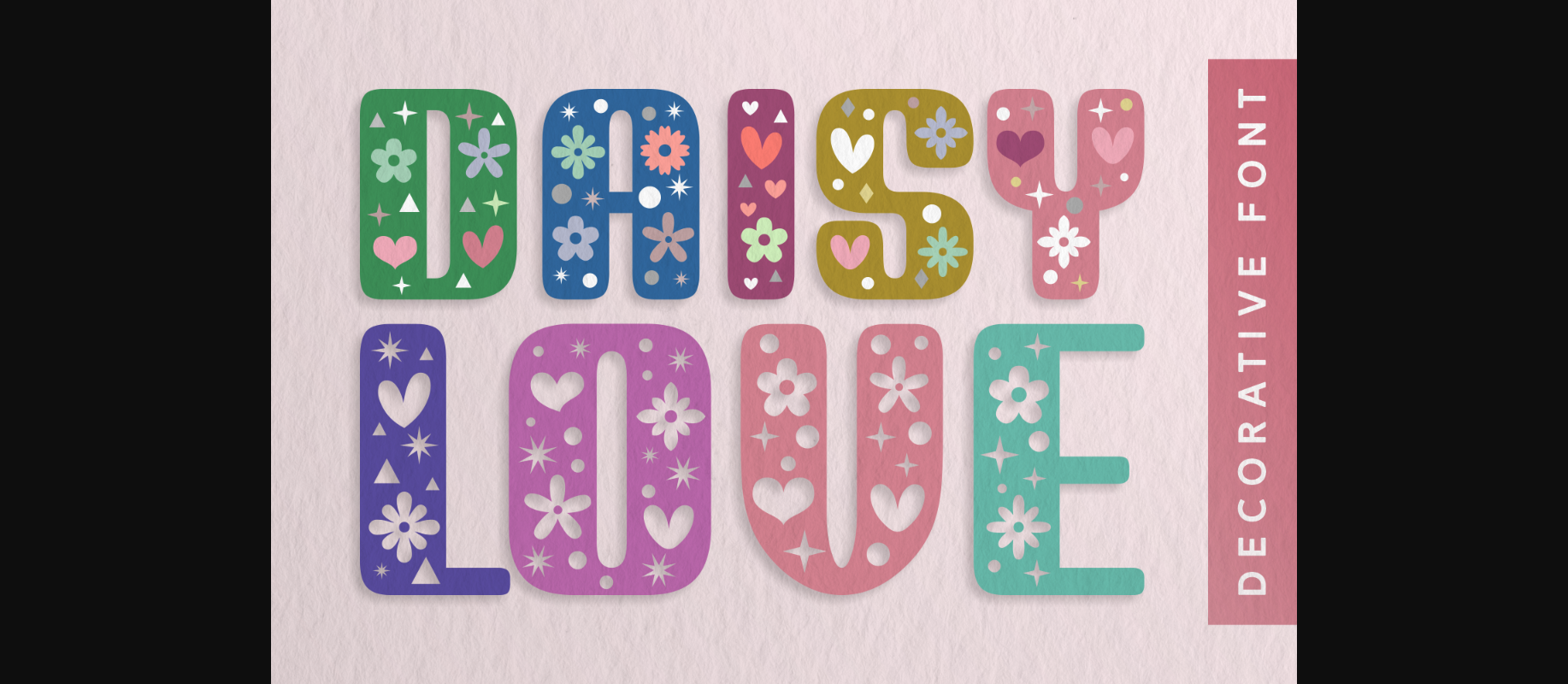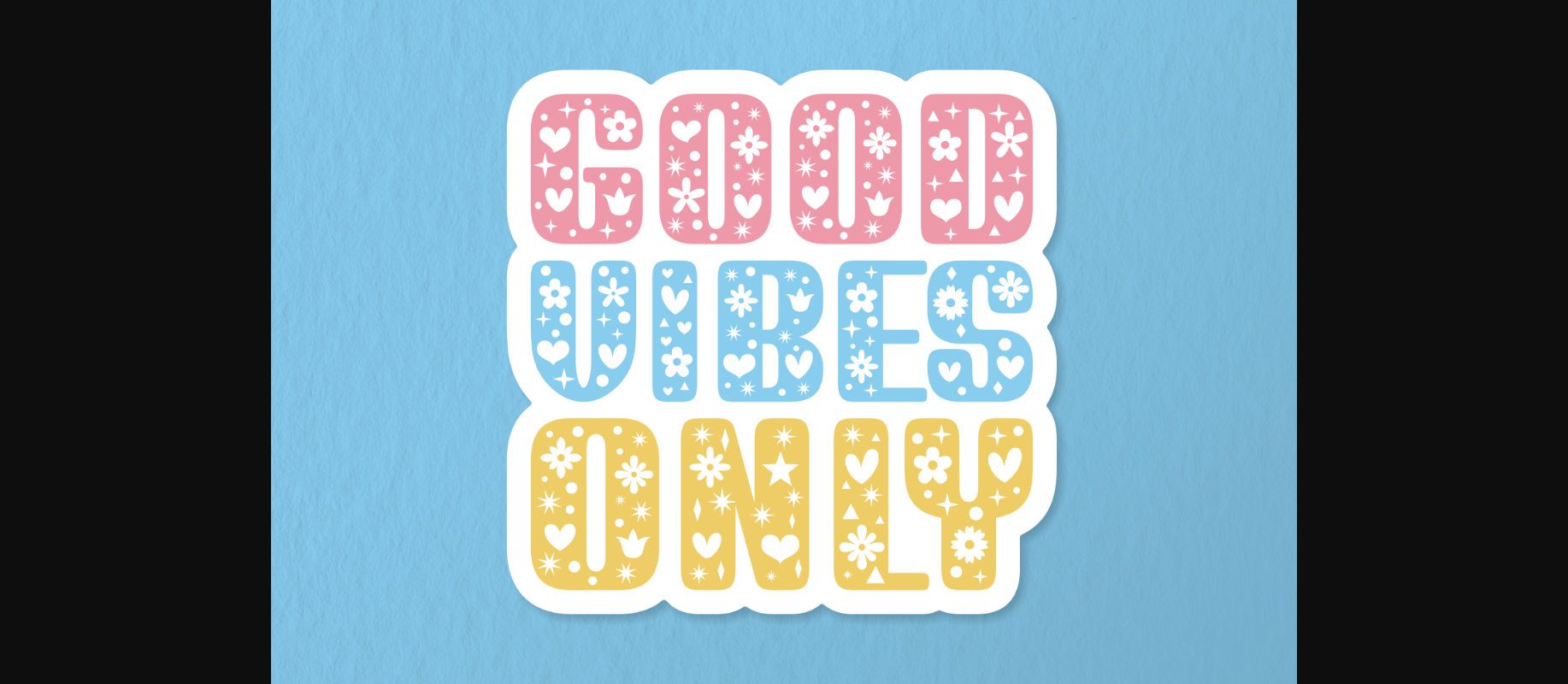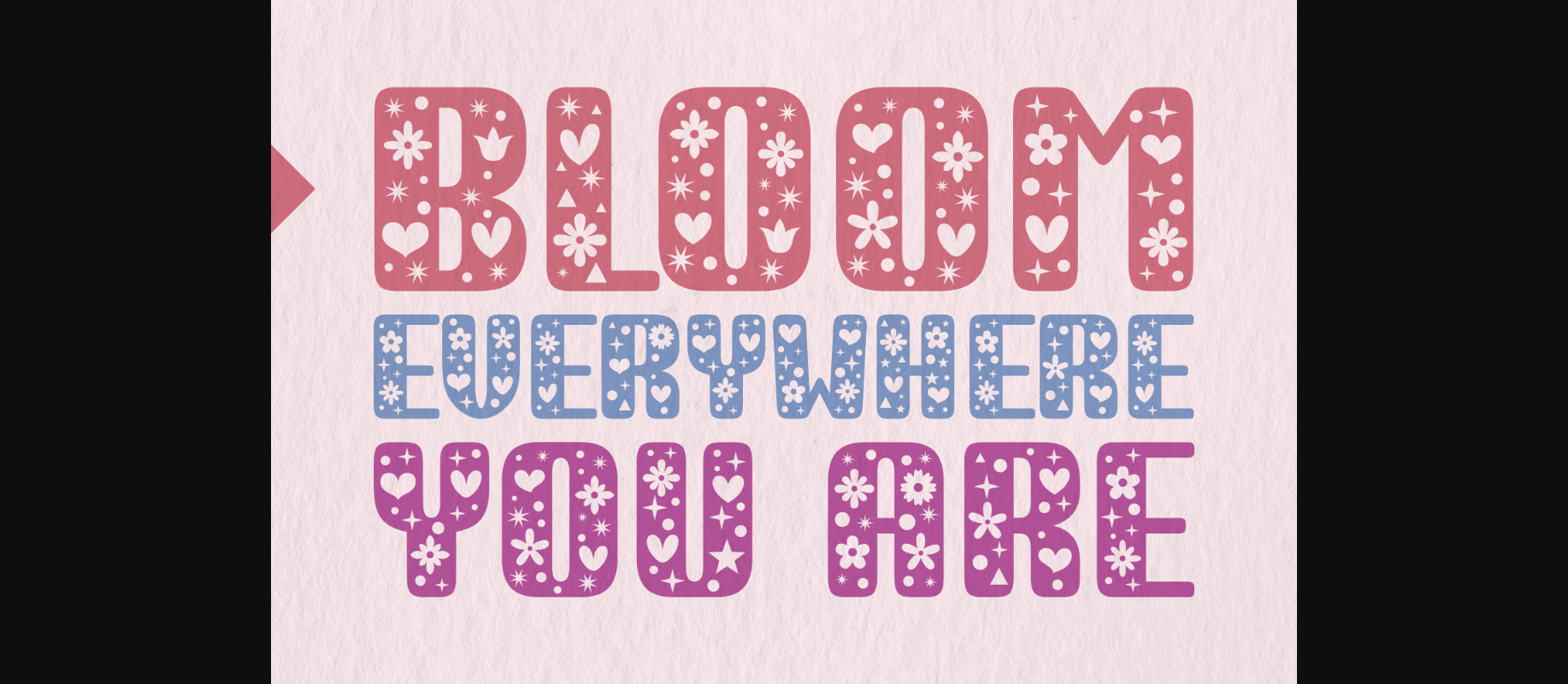
About Daisy Love Font
Daisy Love is a lovely decorative font featuring bold, chubby letters decorated with hearts, flowers, stars, and cuteness. Let your creative juices flow, and use this splendid typeface to create outstanding designs!